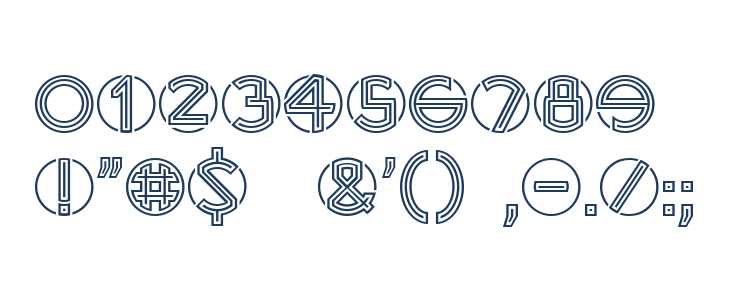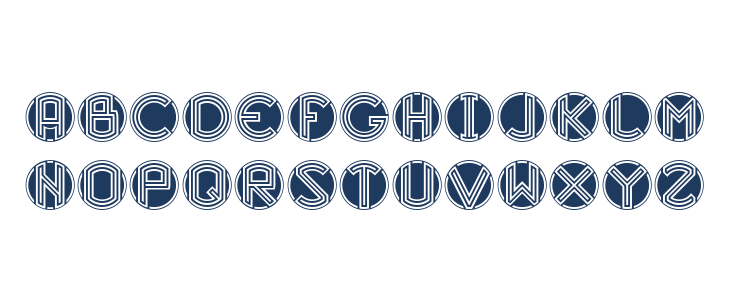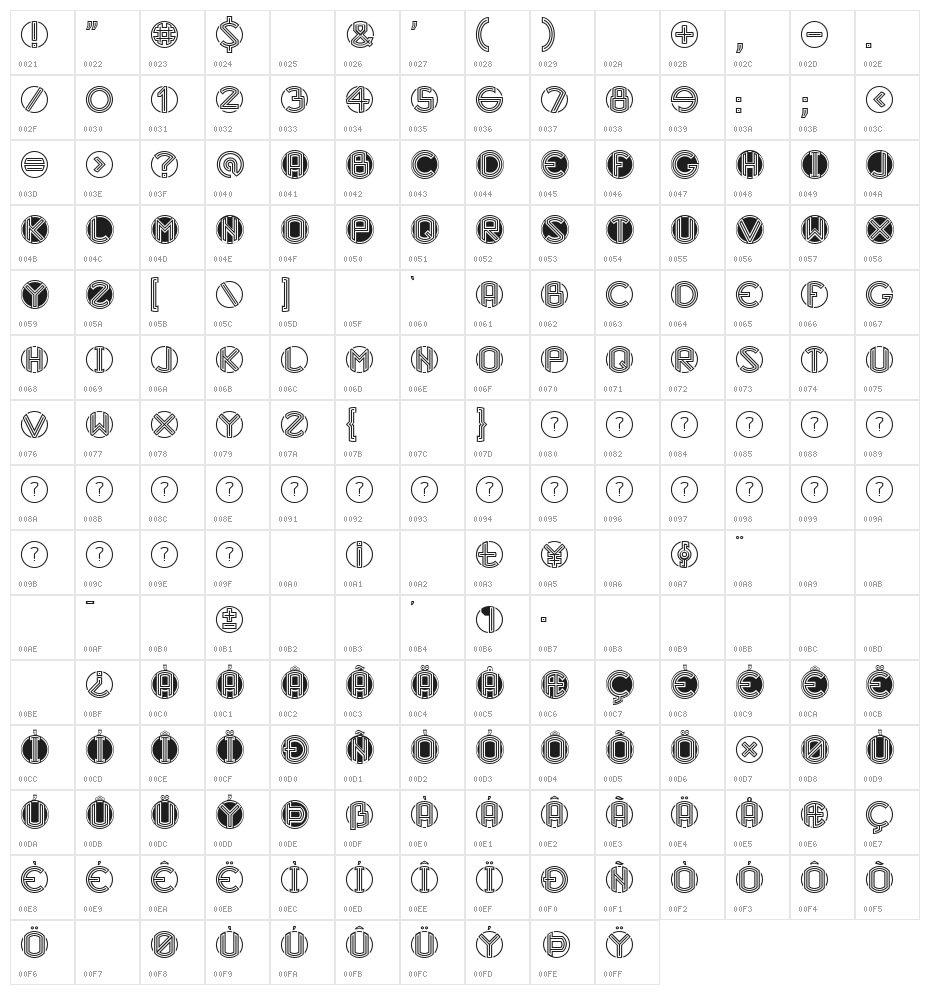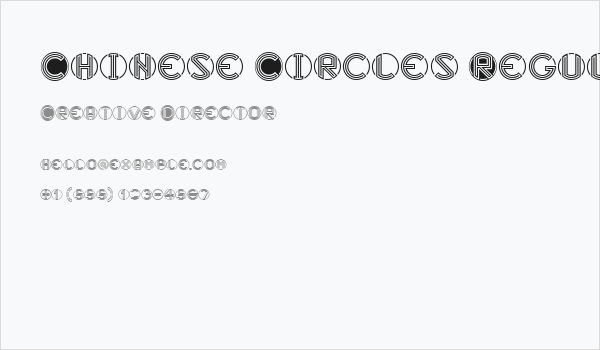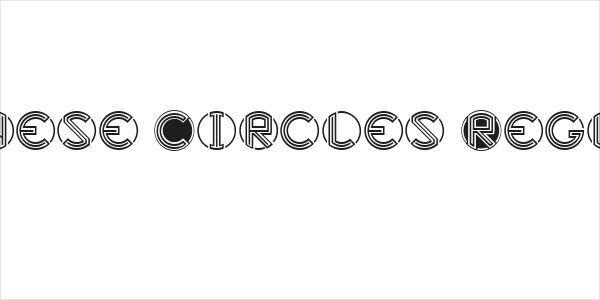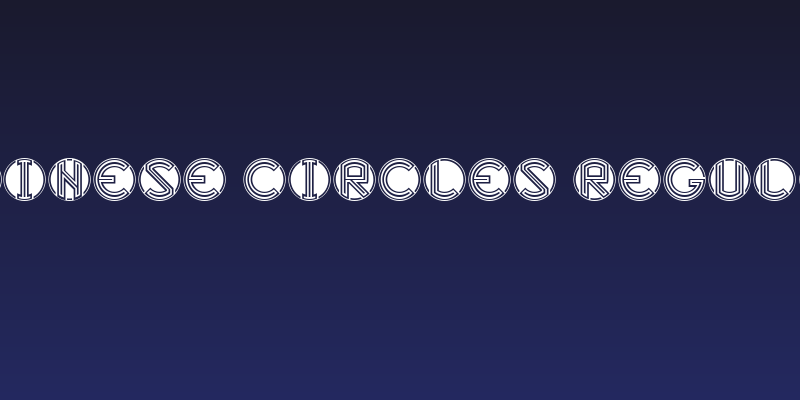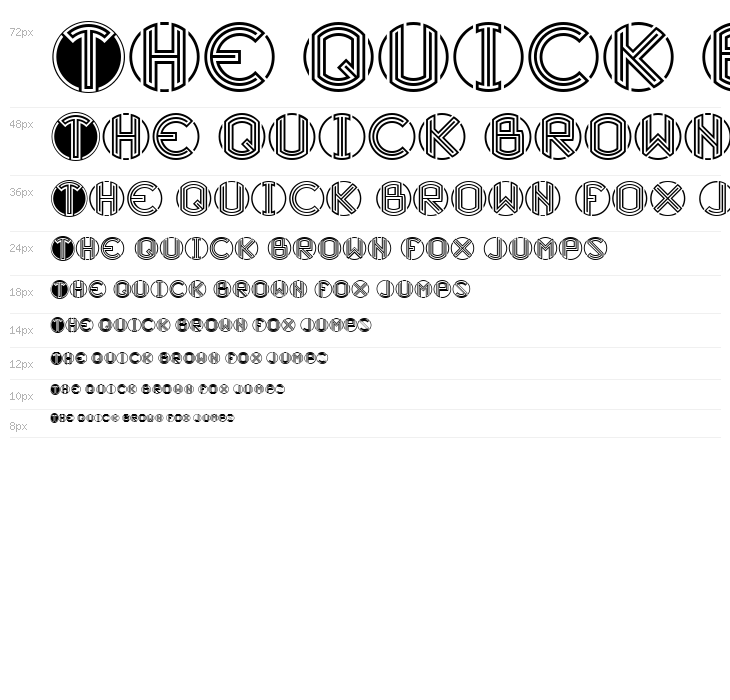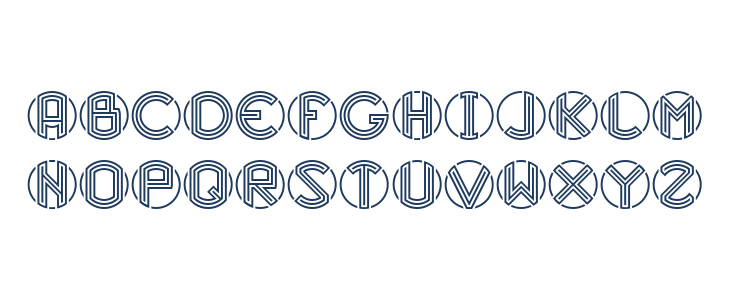
Chinese Circles Regular Font
Chinese Circles Regular Description
Geometric display font featuring uppercase letters, numbers, and symbols enclosed within double-line circular outlines, with letterforms constructed from straight lines and curves that intersect the circles, creating a bold, futuristic, and decorative appearance.
| Overall Style | Decorative, Futuristic, Geometric |
| Use Case | Headlines, Logos, Posters, Decorative text |
| Proposed Projects | Posters, event invitations, branding for tech or art events, signage, album covers, decorative headings. |